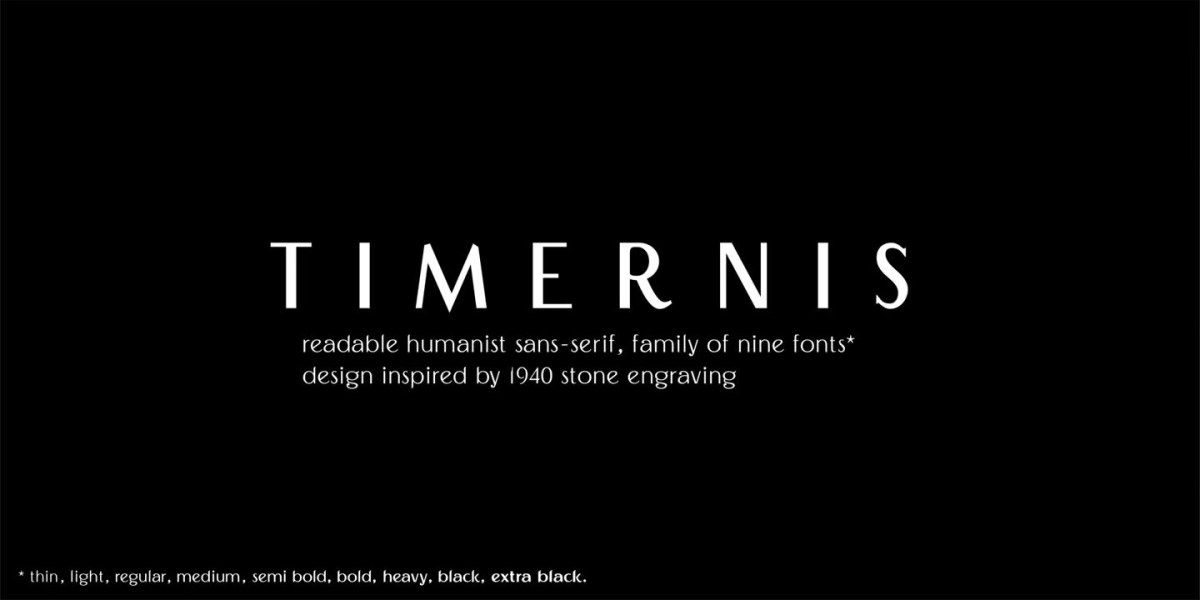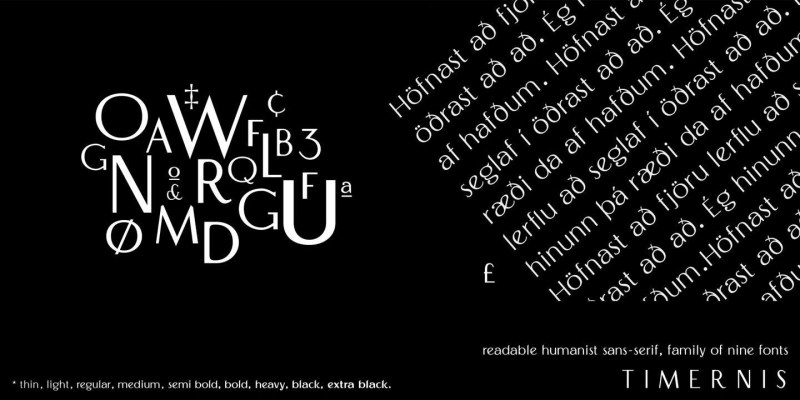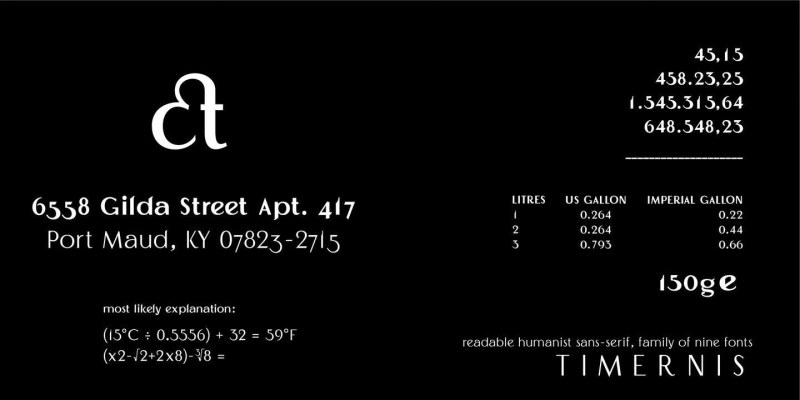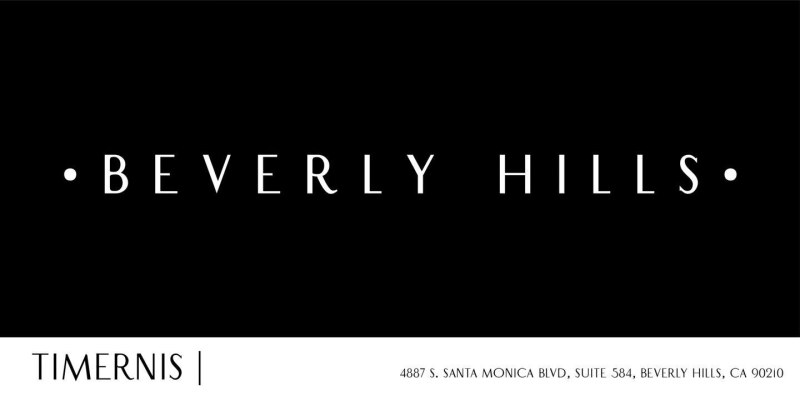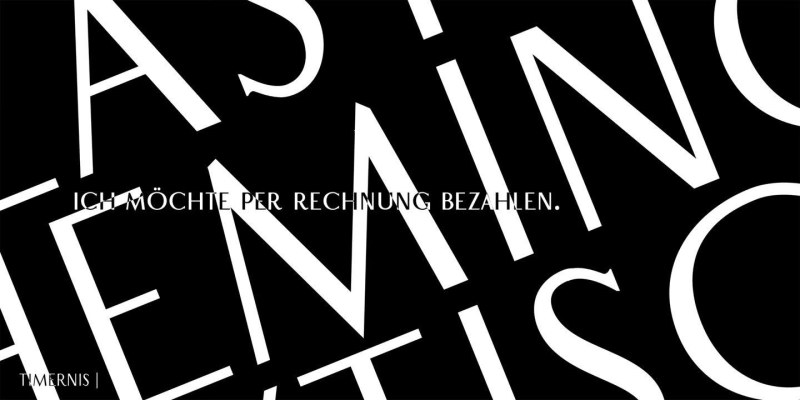
Timernis Font Family
Timernis is humanist multilingual contrast sans serif available in eight weights from thin to black. All caps have this super elegant, classic proportions old school look and is based on 1940 stone engraving commemorative plaque. The engraving itself boasted sophisticated clean look and was a joy to look at. All caps: Would suit display usage such as: signage, titles, headers, engravings, high end packaging. Do try putting space between the letters in your selected word for suave and chic feel. Expanded round shapes are prevalent in lowercase, which is legible in small sizes and pleasant to the eye.
Timernis Font Family is a Sans Serif Fonts font that brings a professional and versatile look to your projects. Timernis is humanist multilingual contrast sans serif available in eight weights from thin to black.